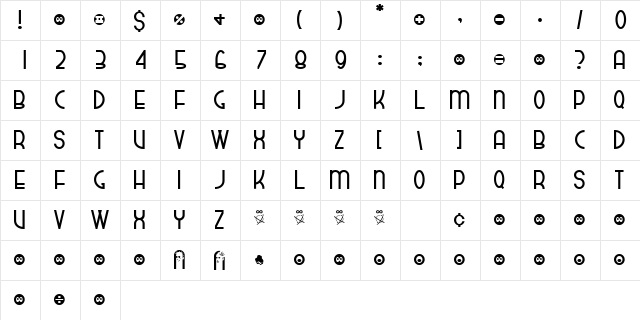
dekthusian Regular
Design Context for dekthusian Typeface
dekthusian is a composed and adaptable typeface that performs quietly and consistently across a wide range of design contexts.